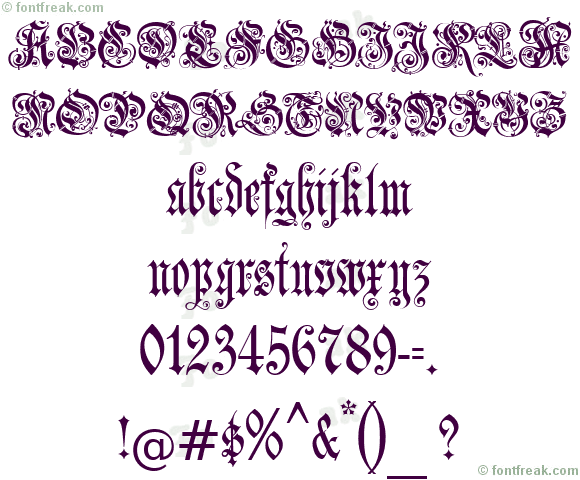
JenaGotisch
About JenaGotisch
JenaGotisch is a distinctive decorative font designed by Peter Wiegel, falling into the category of display typefaces. With its ornate Gothic style, this font captures the essence of medieval artistry, making it ideal for projects that require a touch of elegance and historical flair. The strokes exhibit a rich weight variation, providing a striking contrast that enhances legibility while maintaining an artistic appeal. The intricate decorative elements, such as flourishes and unique letterforms, contribute to its bold visual presence, while the overall spacing ensures clarity and readability.
This font is particularly well-suited for a variety of creative applications. Graphic designers can utilize the JenaGotisch font for wedding invitations, where its romantic and timeless aesthetic adds an air of sophistication. Similarly, movie posters that aim for a historical or fantasy theme can benefit from its dramatic flair, giving titles a grand and captivating look. Restaurant menus, especially for establishments with a traditional or themed cuisine, can also leverage this font to create an inviting and memorable dining experience. Additionally, content creators looking to enhance their branding or promotional materials can find the JenaGotisch font free download a valuable asset for their design toolkit.
The target audience for this font includes graphic designers, small business owners, and content creators who appreciate unique typography that stands out. JenaGotisch is not just a font; it embodies a rich visual narrative that can elevate any project. Its combination of historical elegance and modern usability ensures that it resonates with a diverse range of users. Whether for print or digital media, JenaGotisch offers a captivating choice that enhances creativity and communicates a sense of artistry, making it a standout option in the world of decorative fonts.